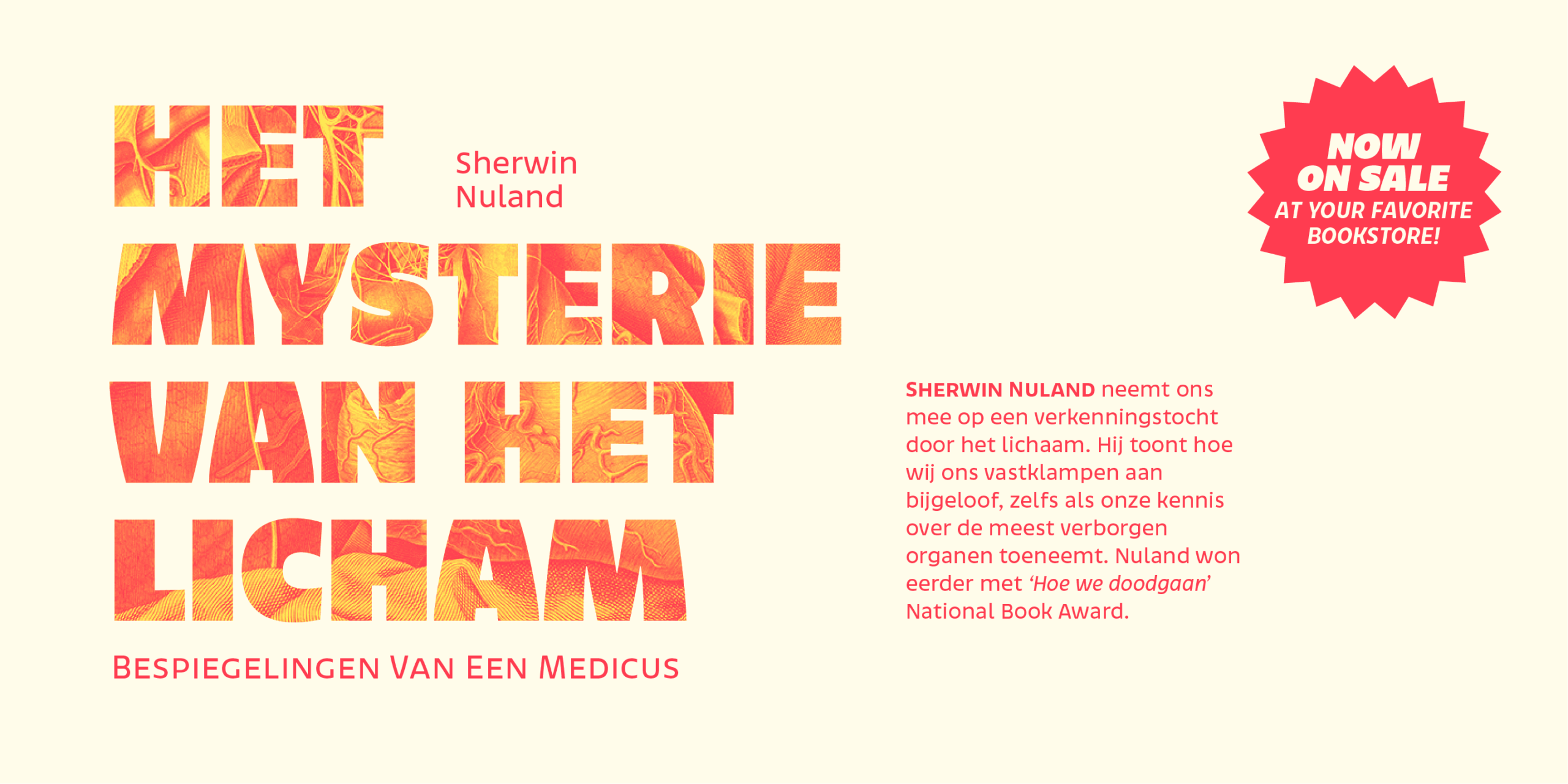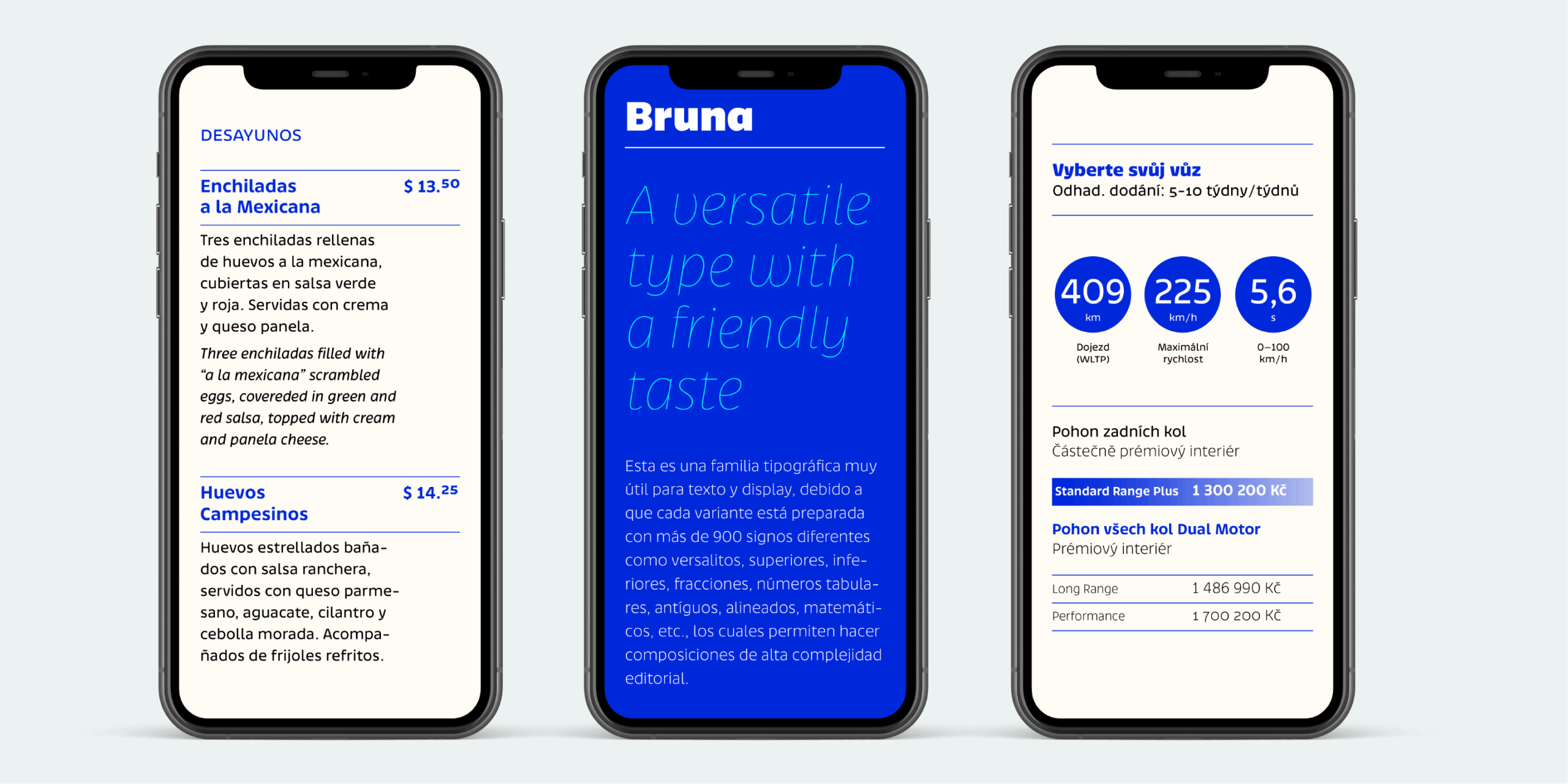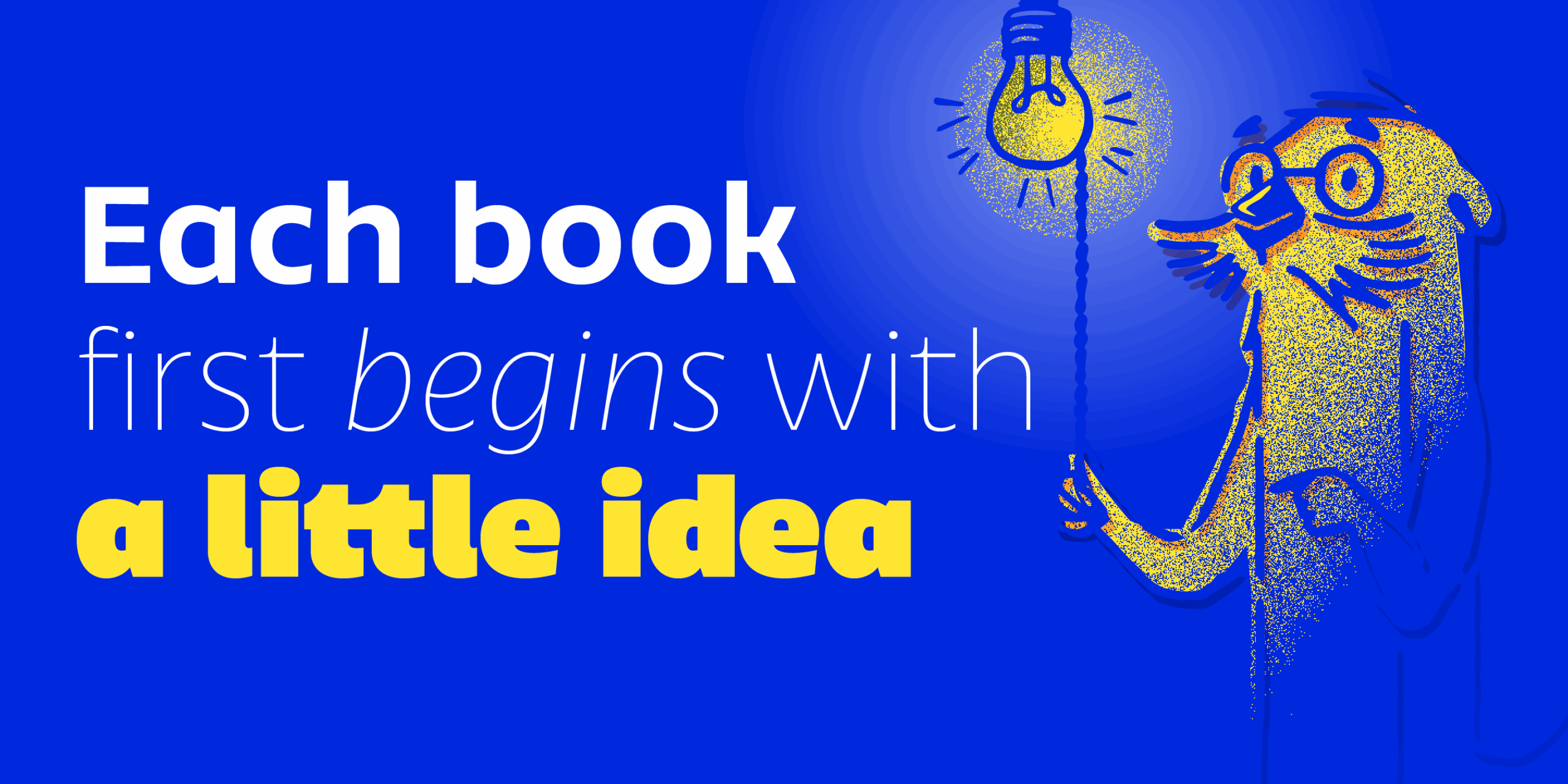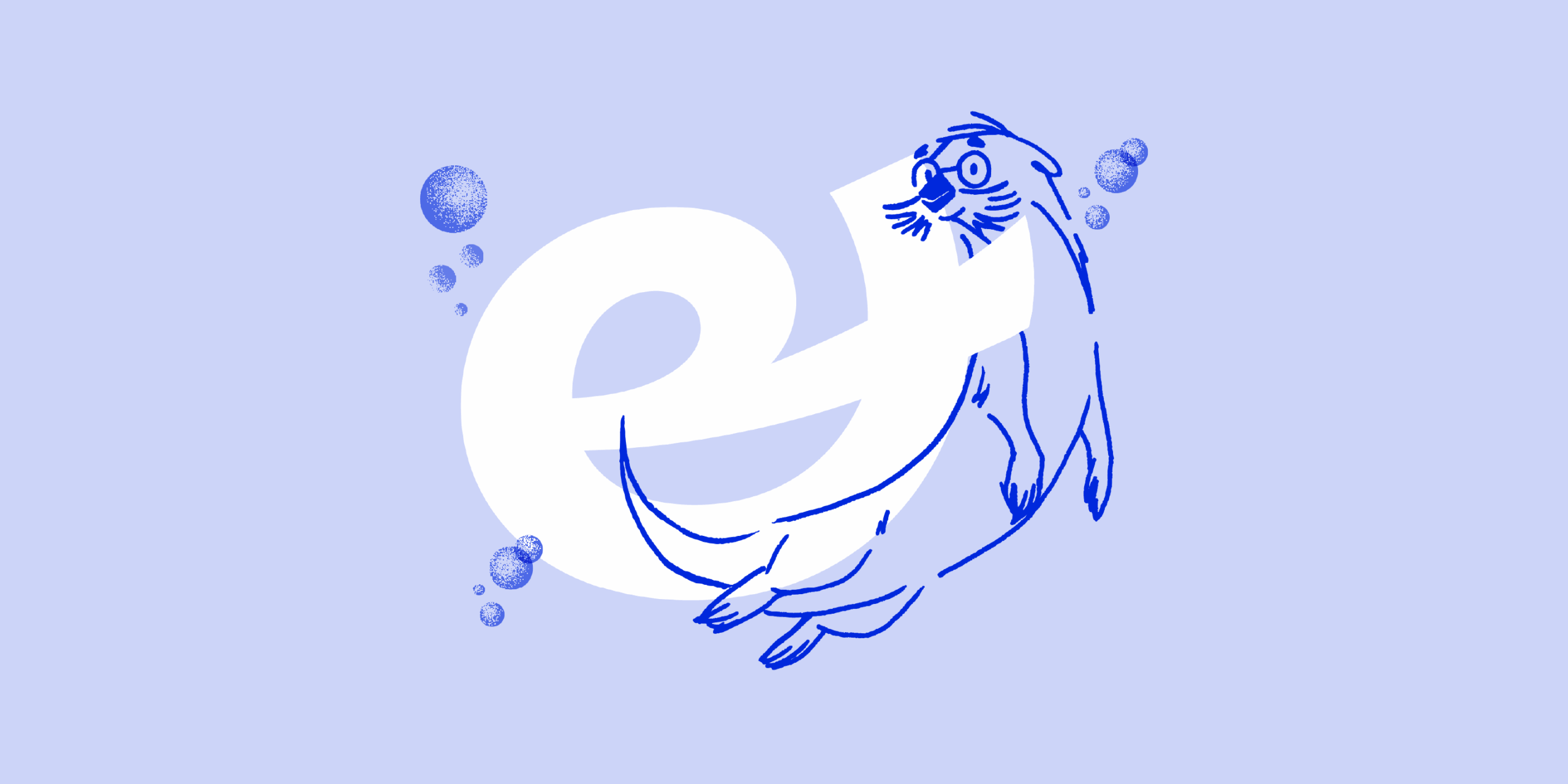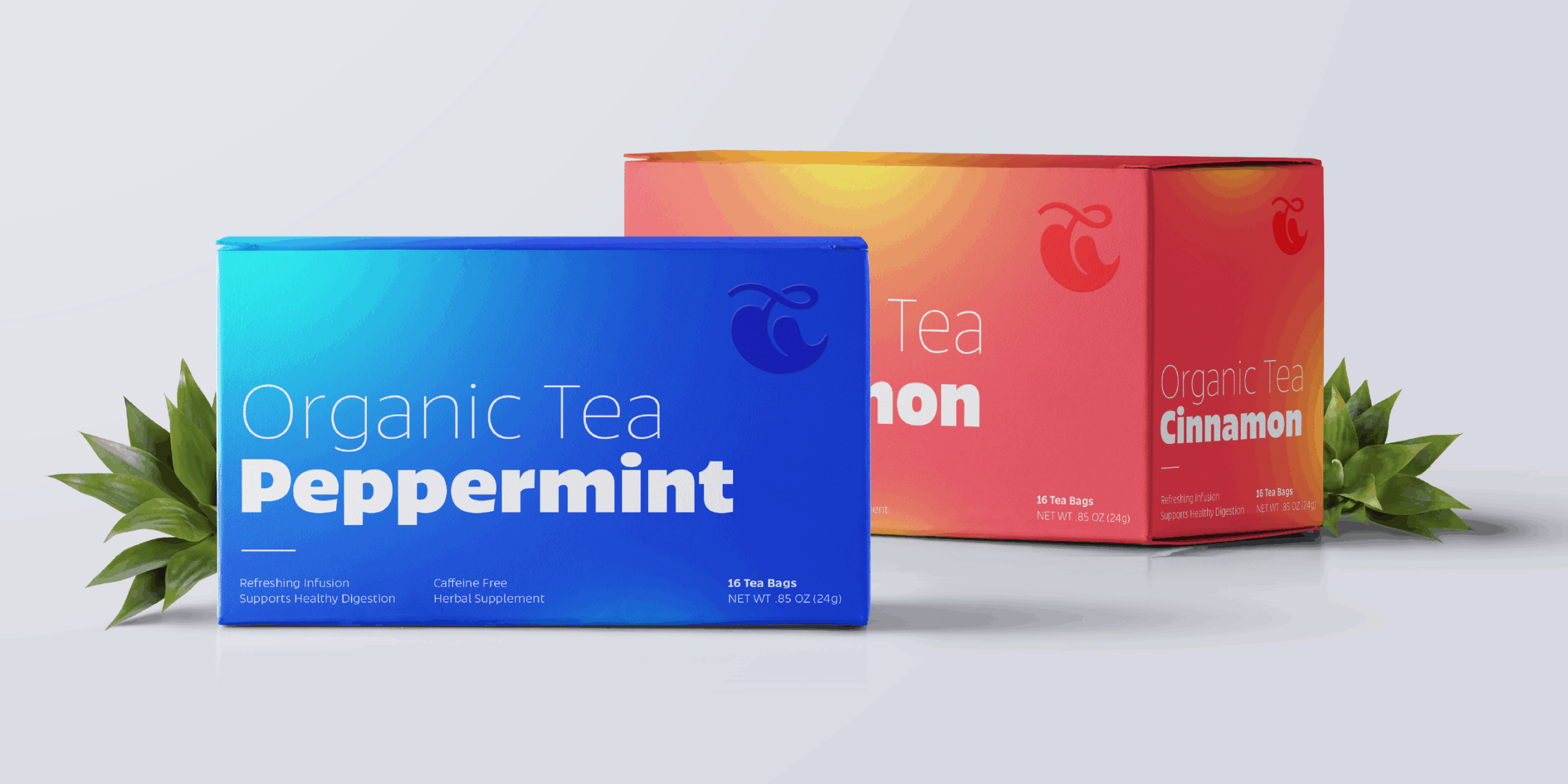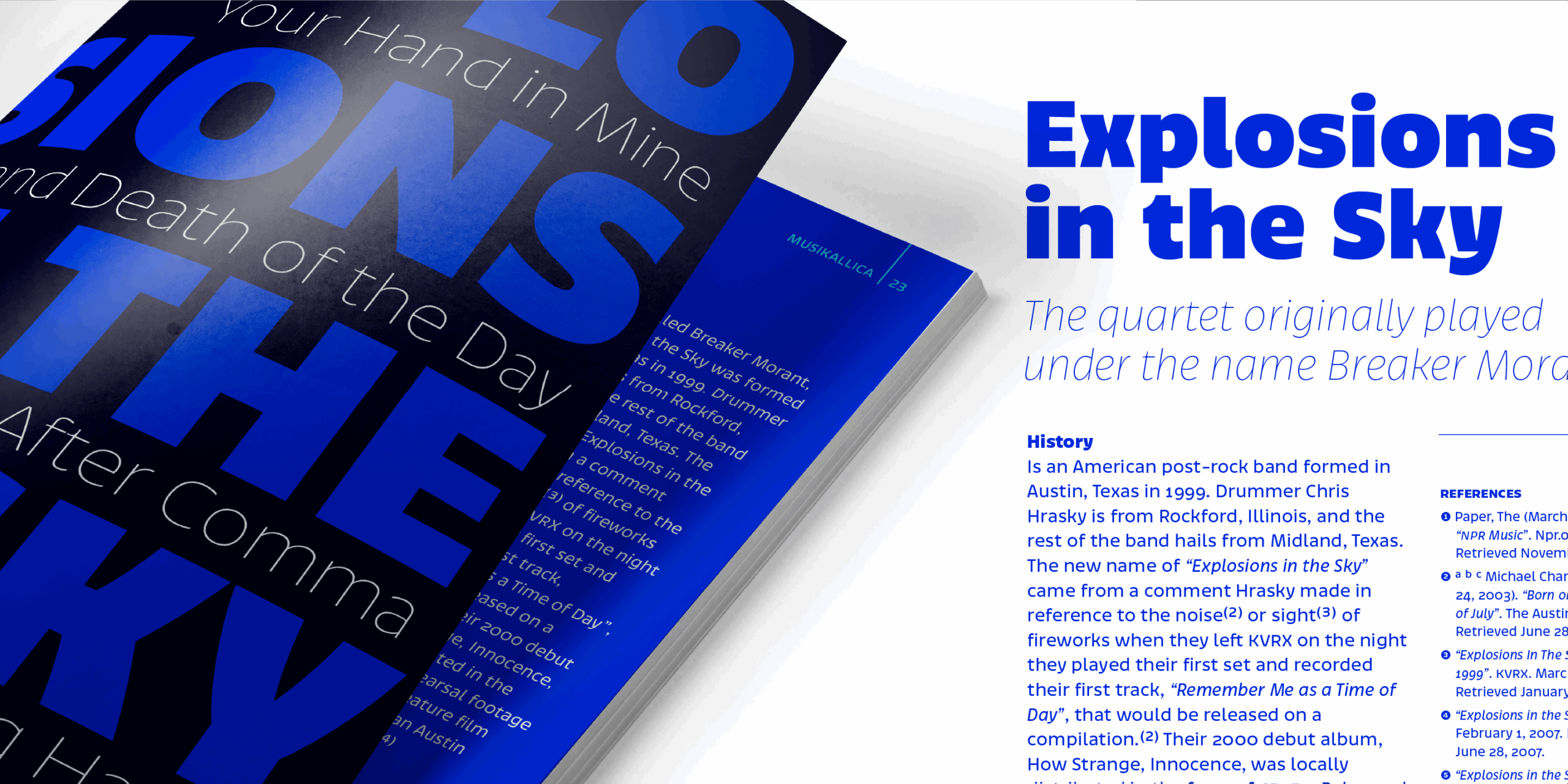
Bruna
Bruna is a geometric humanist sans that blends clarity with warmth across 18 meticulously drawn styles. With generous counters, a tall x-height, and subtly curved diagonals, Bruna performs effortlessly in both micro and macro typography. From Thin to Heavy Italic, its full weight range—including alternates, small caps, tabular figures, and fractions—makes it a power tool for complex editorial design and immersive UI.
Its clean geometry softened by fluid terminals gives Bruna a distinctive, affable tone—ideal for branding, packaging, and headline design. While the lightest and heaviest cuts excel in expressive, oversized settings, the intermediate weights bring legibility and elegance to text down to 6pt. Bruna’s versatility shines across identities that demand both personality and precision.
Low
Width
Normal
Counter
Large
Stroke Ending
Sans Serif
X-Height
Large
Font Ideal Sizes
06-90
Pixel Density
Medium [Text]
Legibility
High
Reading Speed
Medium
Visual Acuity
Medium
Intended for
Display, text.